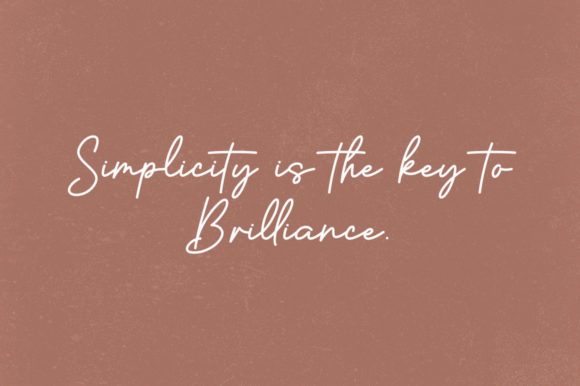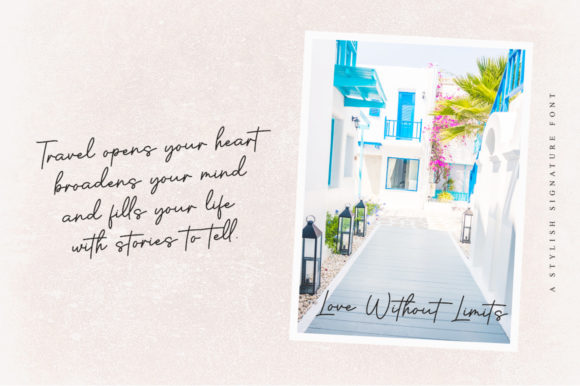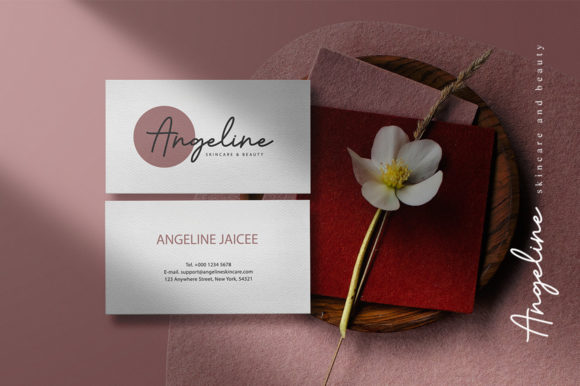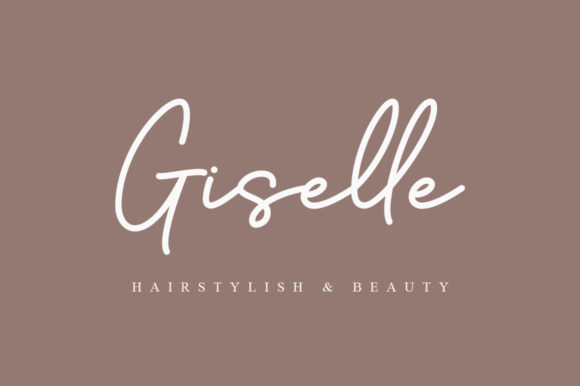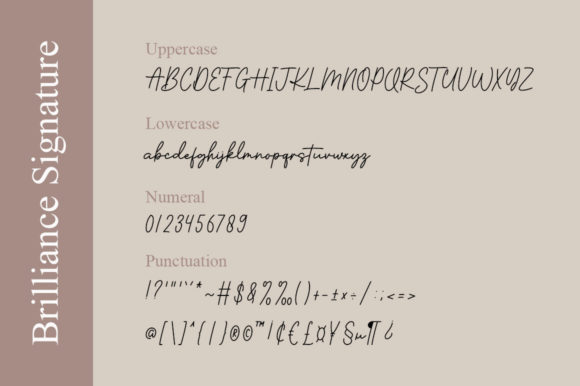
Adding a Touch of Elegance to Your Designs
Have you ever stumbled upon a beautiful handwritten note from a loved one and felt an instant rush of emotions? For many of us, the imperfections and personal touches in handwritten letters evoke a sense of warmth and connection. This is exactly what designers aim to capture when creating wedding invitations, cards, or any other design that requires a romantic, personalized touch.
Enter the Brilliance Signature Font, a dainty and flowing handwritten font that embodies the essence of sweetness and joy. With its unique, hand-crafted style, this font is perfect for adding a personal touch to your designs. Whether you’re a seasoned designer or a creative enthusiast, the Brilliance Signature Font is a valuable asset that will elevate your projects and leave a lasting impression on your audience.
Brilliance Signature Font Key Features
- Font Family: Brilliance Signature Font
- Unique Characteristics: Hand-crafted, elegant, and sophisticated design, ideal for signatures, logos, and branding
- Character Set: Supports Latin, Cyrillic, and Greek alphabets, as well as punctuation and symbols
Designer Review: Brilliance Signature Font
Overall, I’d say the Brilliance Signature Font has its moments, but it’s not a game-changer. ✨ I love the elegant, high-end feel it gives to any project, and the font’s versatility makes it suitable for a wide range of applications, from logos to marketing materials.
The font’s unique flair is a result of its expertly crafted letterforms and subtle nuances in style, which add a touch of sophistication to any text. ✨ It’s particularly effective for brands looking to convey luxury, sophistication, or refinement.
- Elegant, high-end feel
- Versatile and suitable for various applications
- Expertly crafted letterforms and subtle style nuances
- Not ideal for projects requiring a more playful or casual tone
- Lack of bold weights may limit its use in certain contexts
- May not be as readable at smaller font sizes
- ⚠️ Limited language support
Overall, while the Brilliance Signature Font has its strengths, its limitations hold it back from being a truly exceptional font. With some tweaks to address these issues, it could be a top contender in the high-end font market.
Brilliance Signature Font Practical Application Guide
To get the most out of the Brilliance Signature Font, use it for headings and titles to add a touch of elegance and sophistication to your designs. You can also use it for quotes, captions, and other text elements to add visual interest.
The Brilliance Signature Font is ideal for:
- Creating elegant business cards and letterheads
- Designing luxury branding materials
- Adding a touch of sophistication to wedding invitations and stationery
- Creating high-end digital products and online courses
Alternatives to Brilliance Signature Font
Playfair Display is a luxurious, high-end font that works well for creating elegant and sophisticated designs. It is perfect for use in headings, titles, and other prominent text areas. Playfair Display has a more classical feel compared to the modern and sleek design of Brilliance Signature Font.
Great Vibes is a beautiful, elegant font that features a mix of modern and vintage elements. It is ideal for use in designs that require a touch of sophistication and refinement. Compared to Brilliance Signature Font, Great Vibes has a more relaxed feel and is better suited for use in longer blocks of text.
Pacifico is a beautiful, handwritten font that is perfect for use in designs that require a touch of personality and whimsy. It is ideal for use in titles, headings, and other prominent text areas. Pacifico has a more casual feel compared to the modern and sleek design of Brilliance Signature Font.
Q: Can I customize the Brilliance Signature Font to fit my specific design needs?
Yes, the Brilliance Signature Font is highly customizable. With its advanced OpenType features, you can access a range of stylistic sets, contextual alternates, and swash glyphs to create unique and tailored designs. Additionally, you can use font editing software to modify the font’s characteristics and create custom variants.